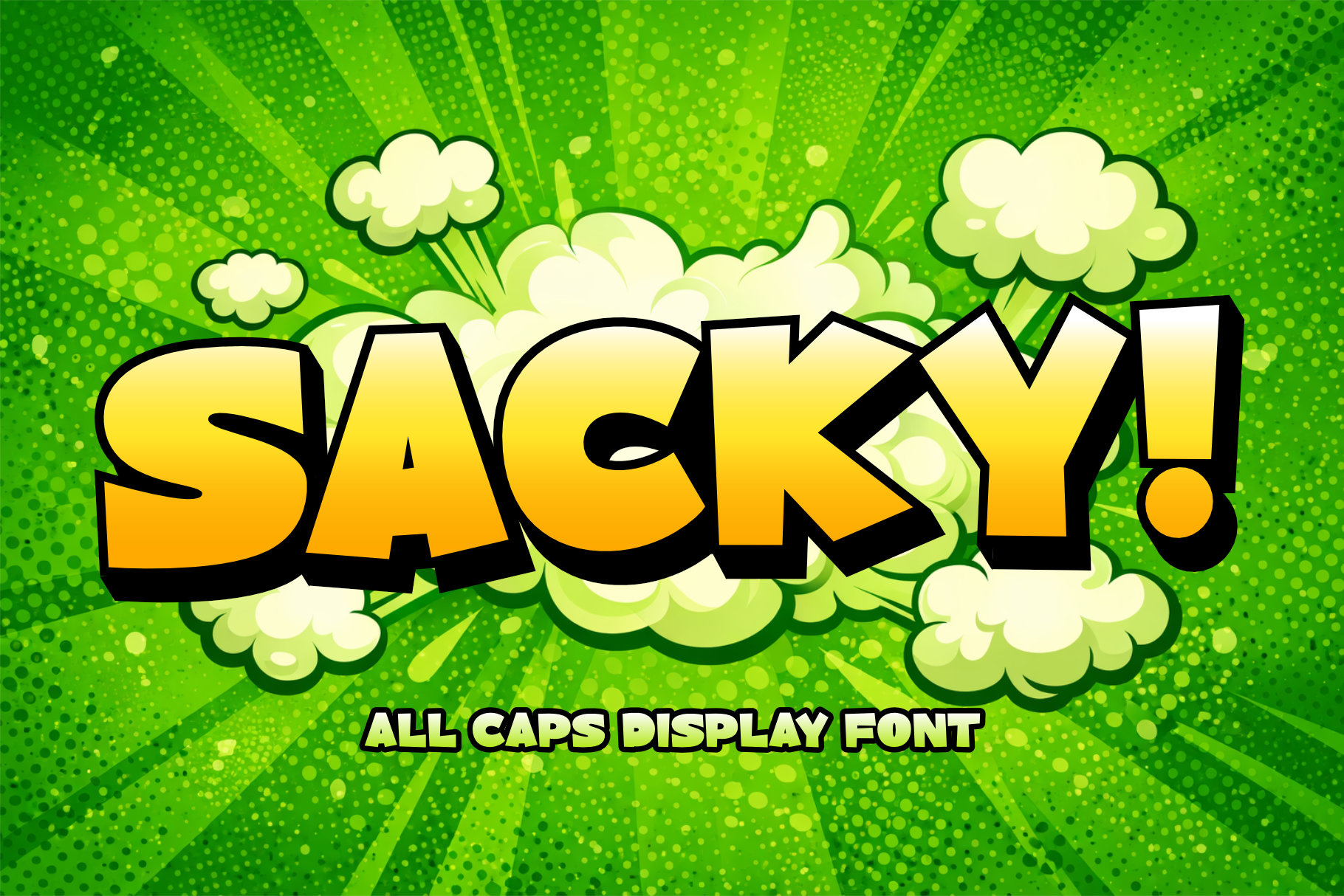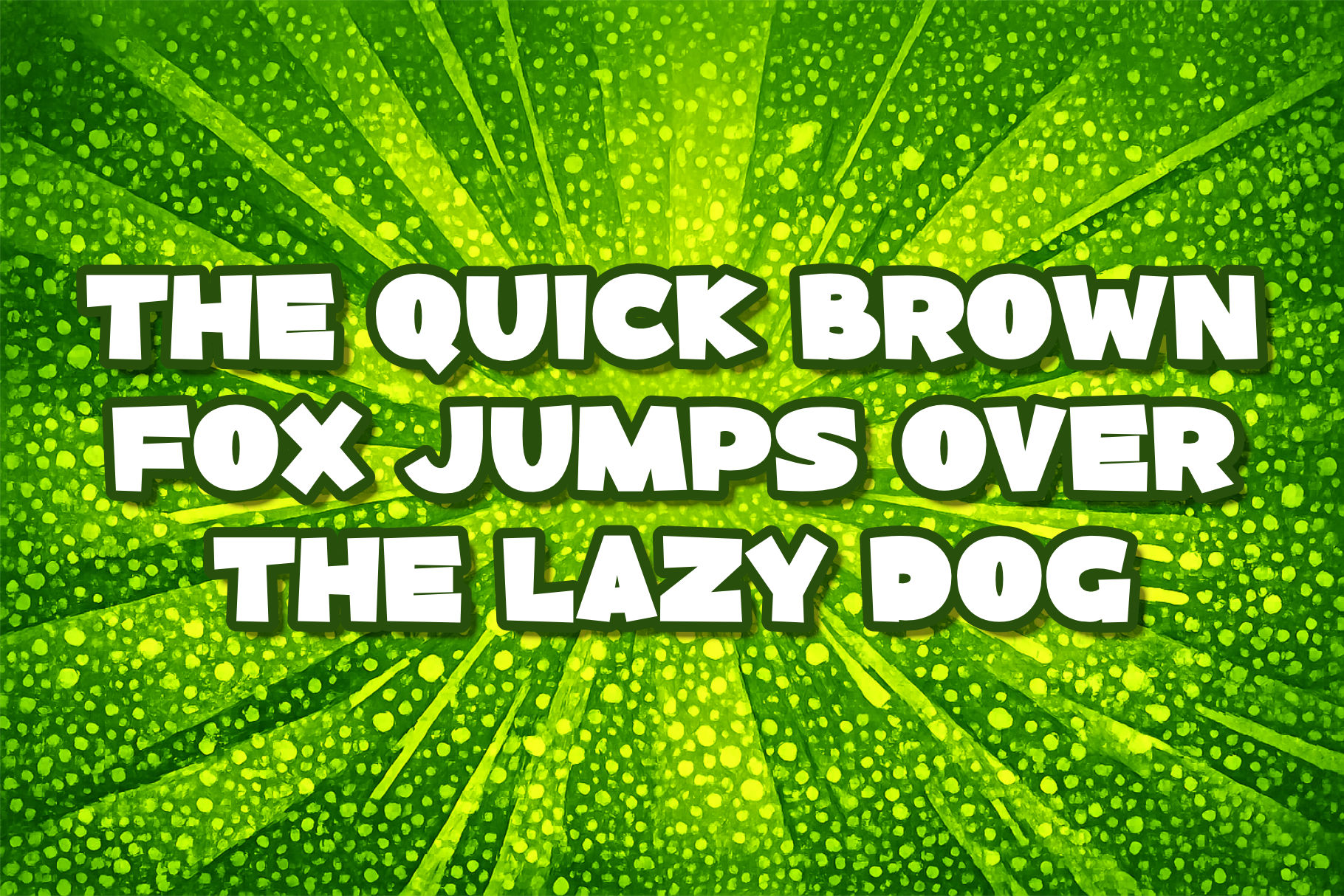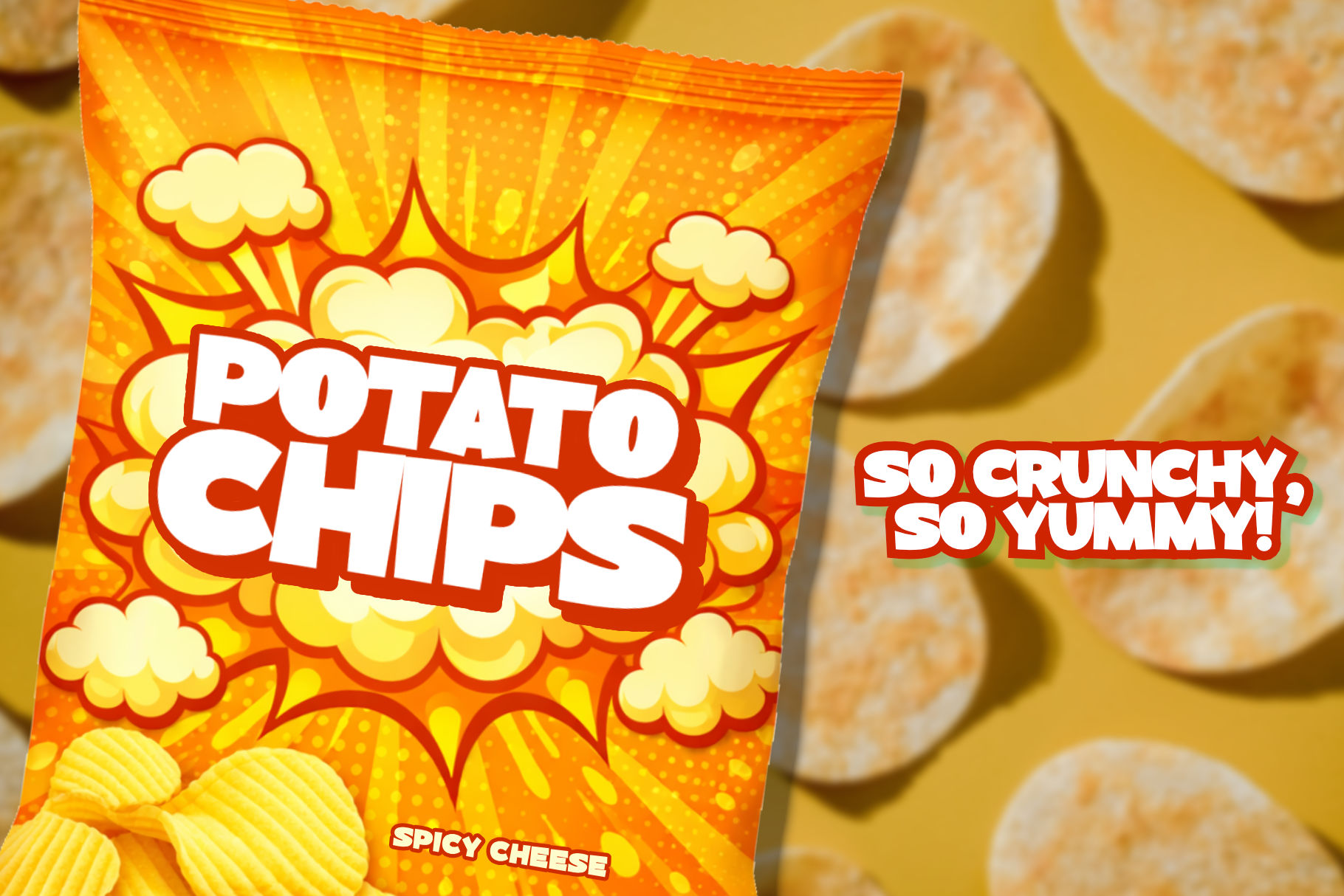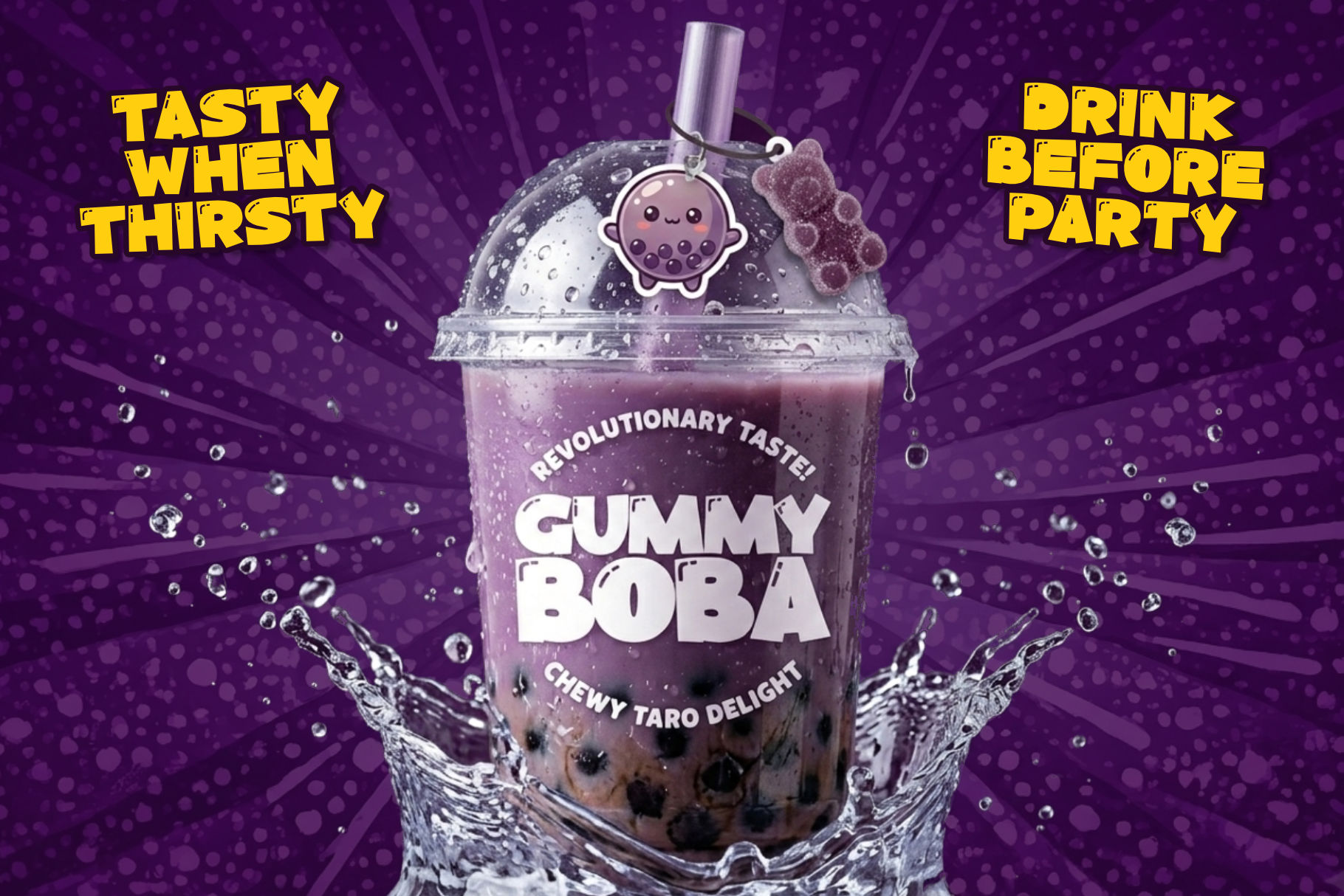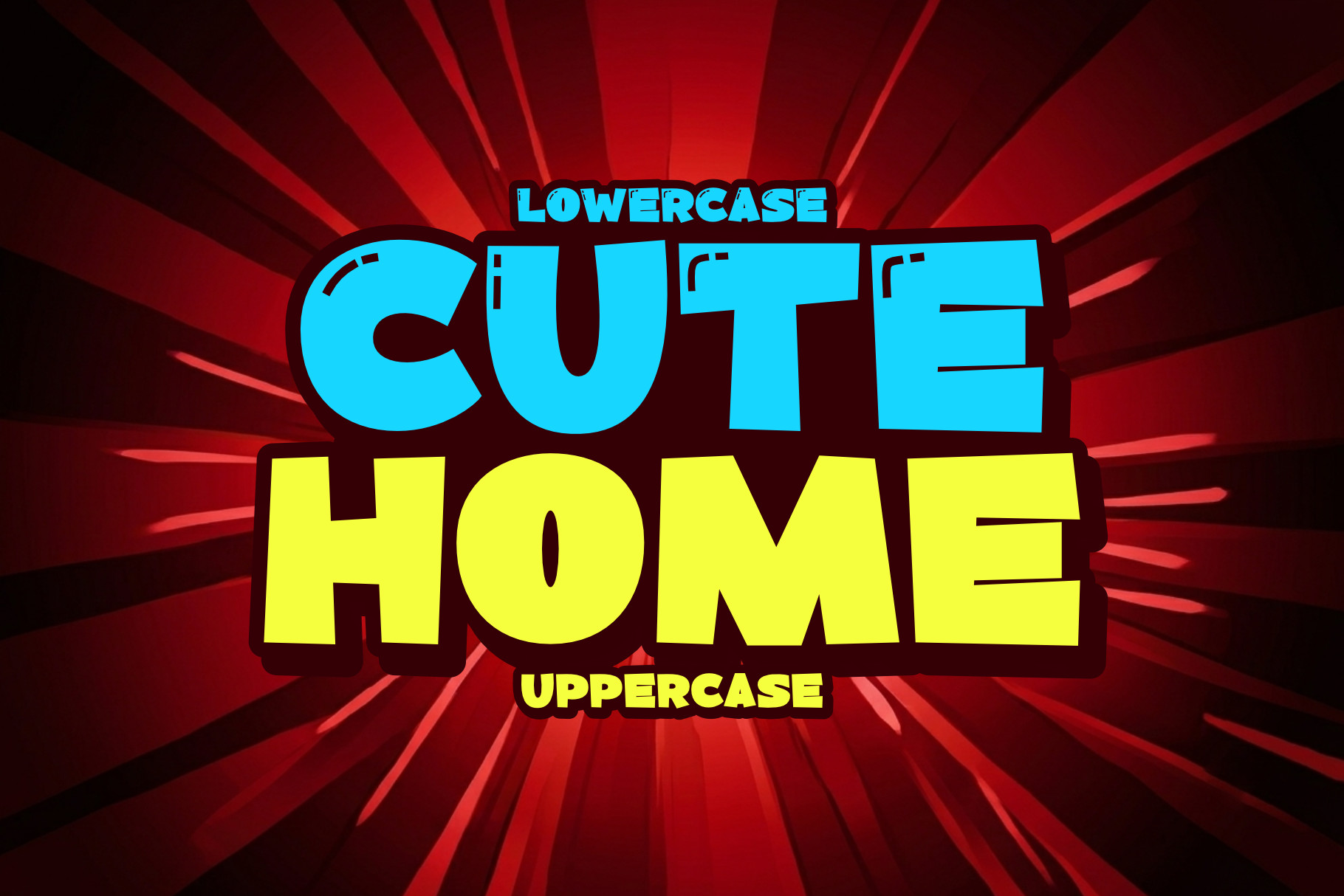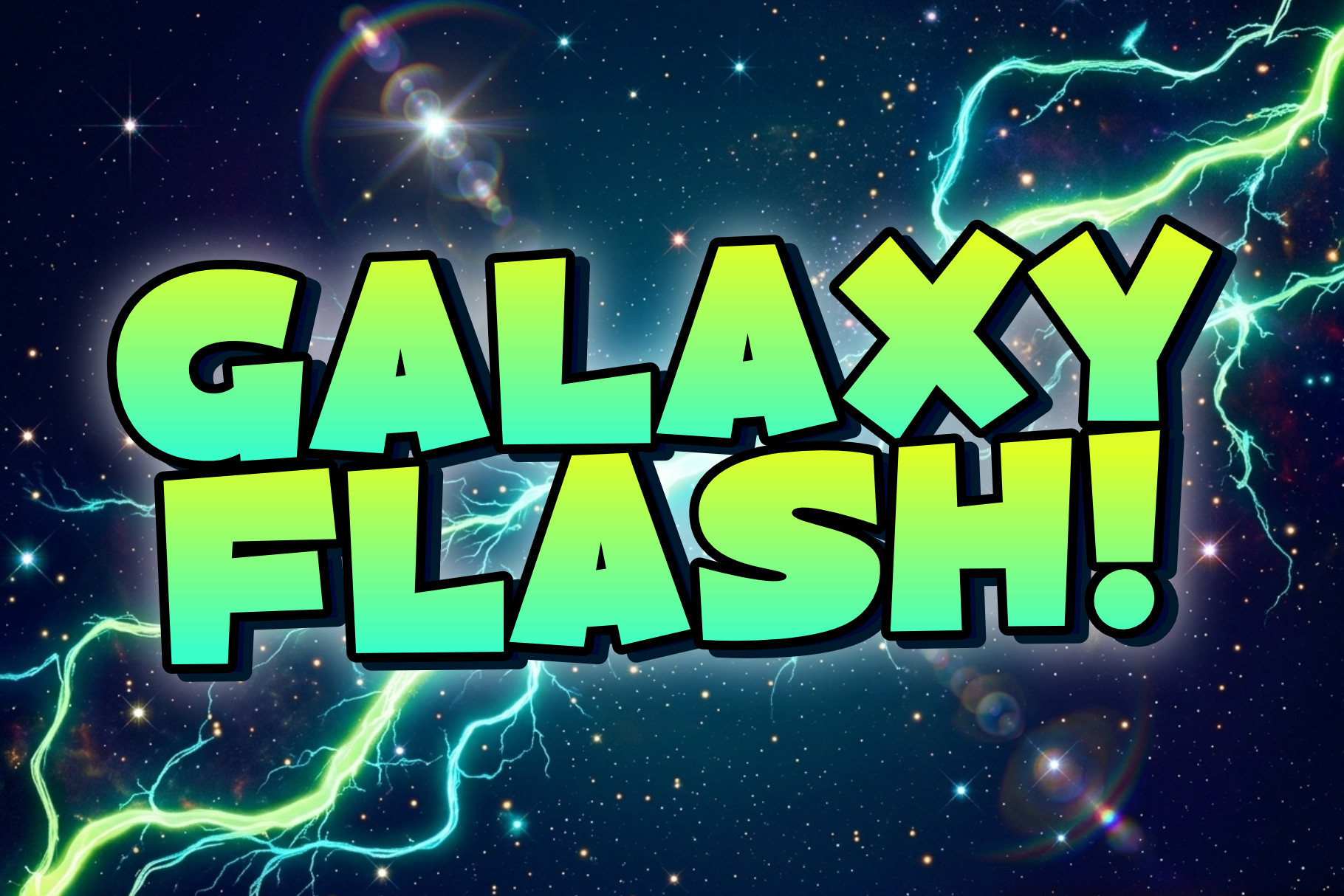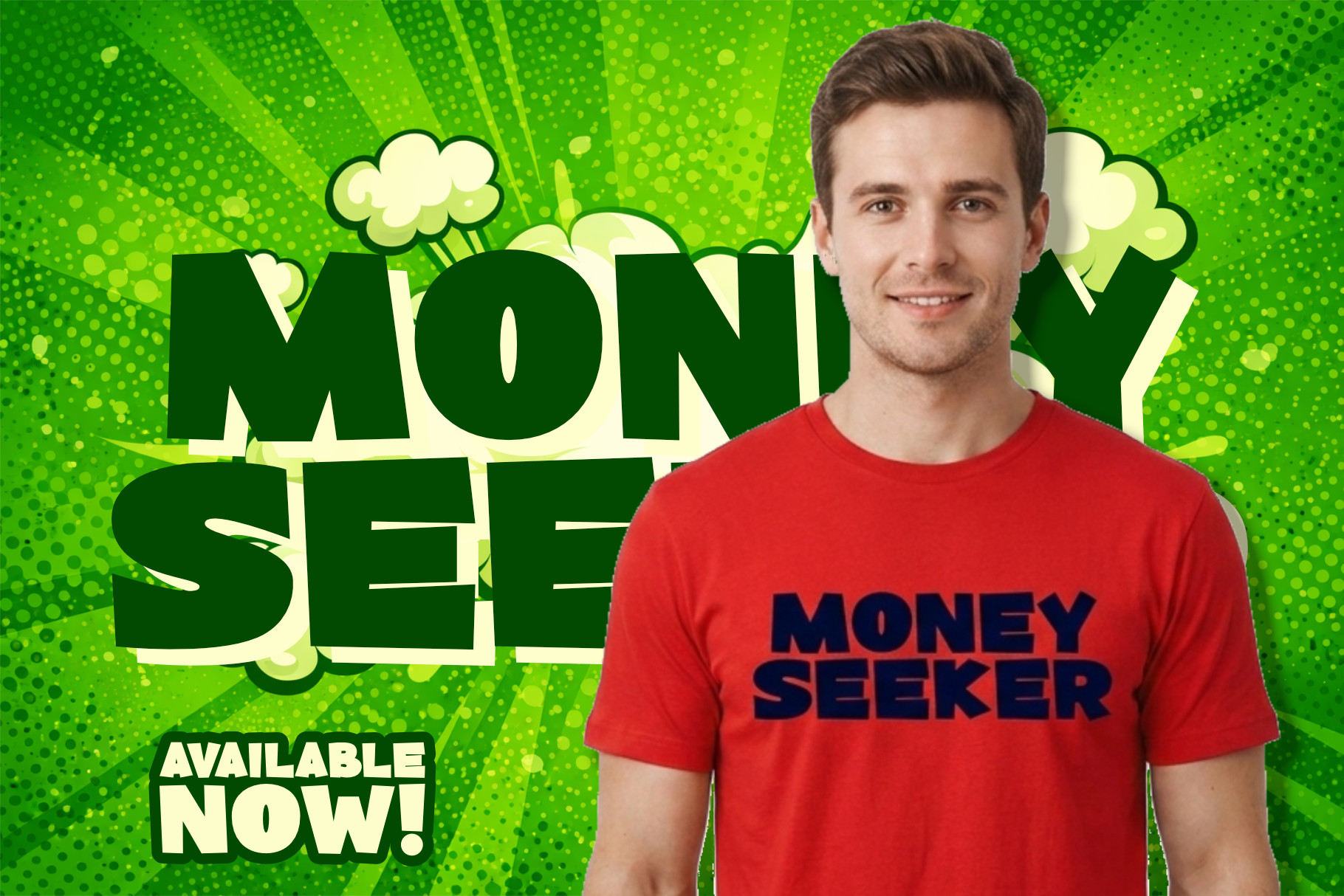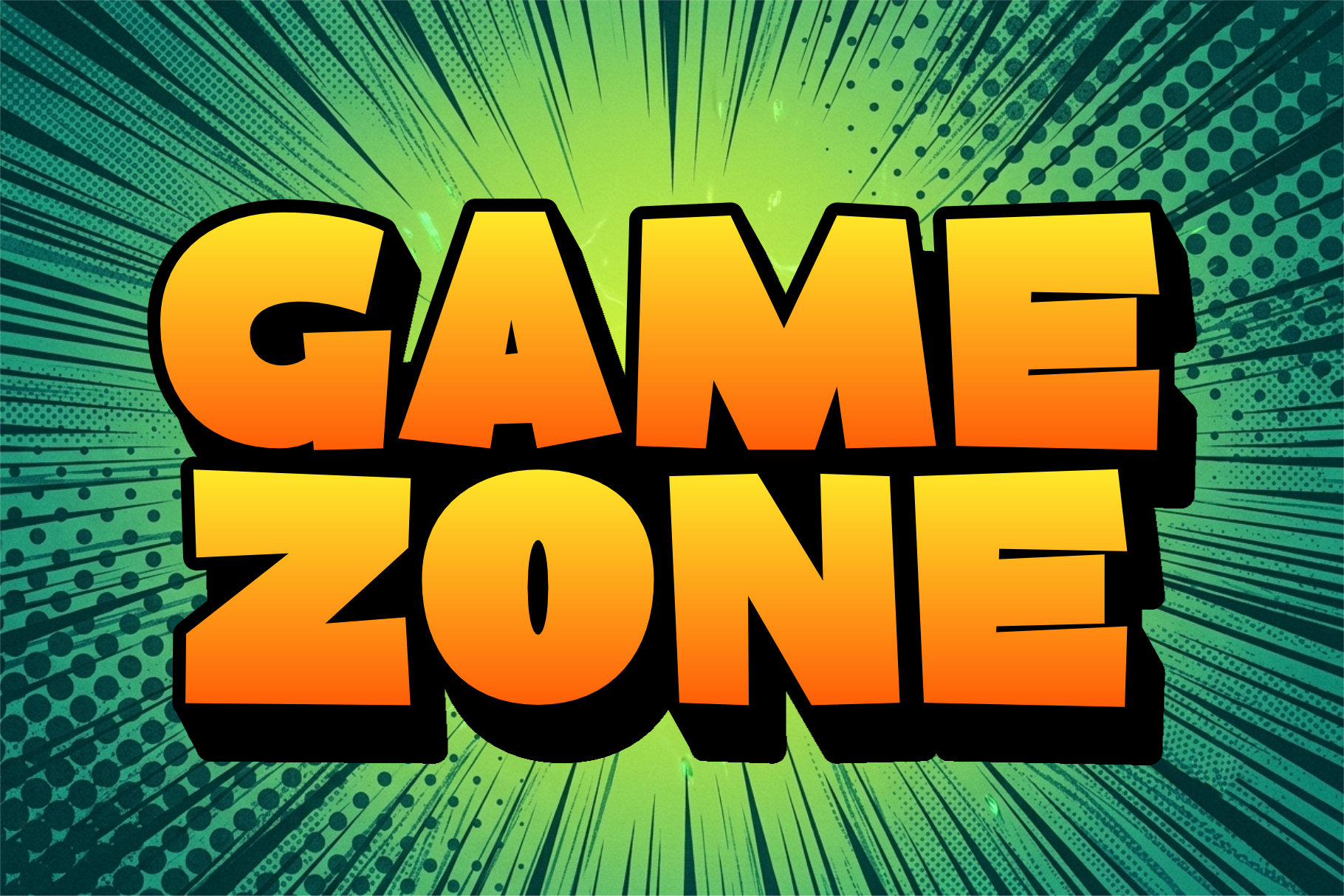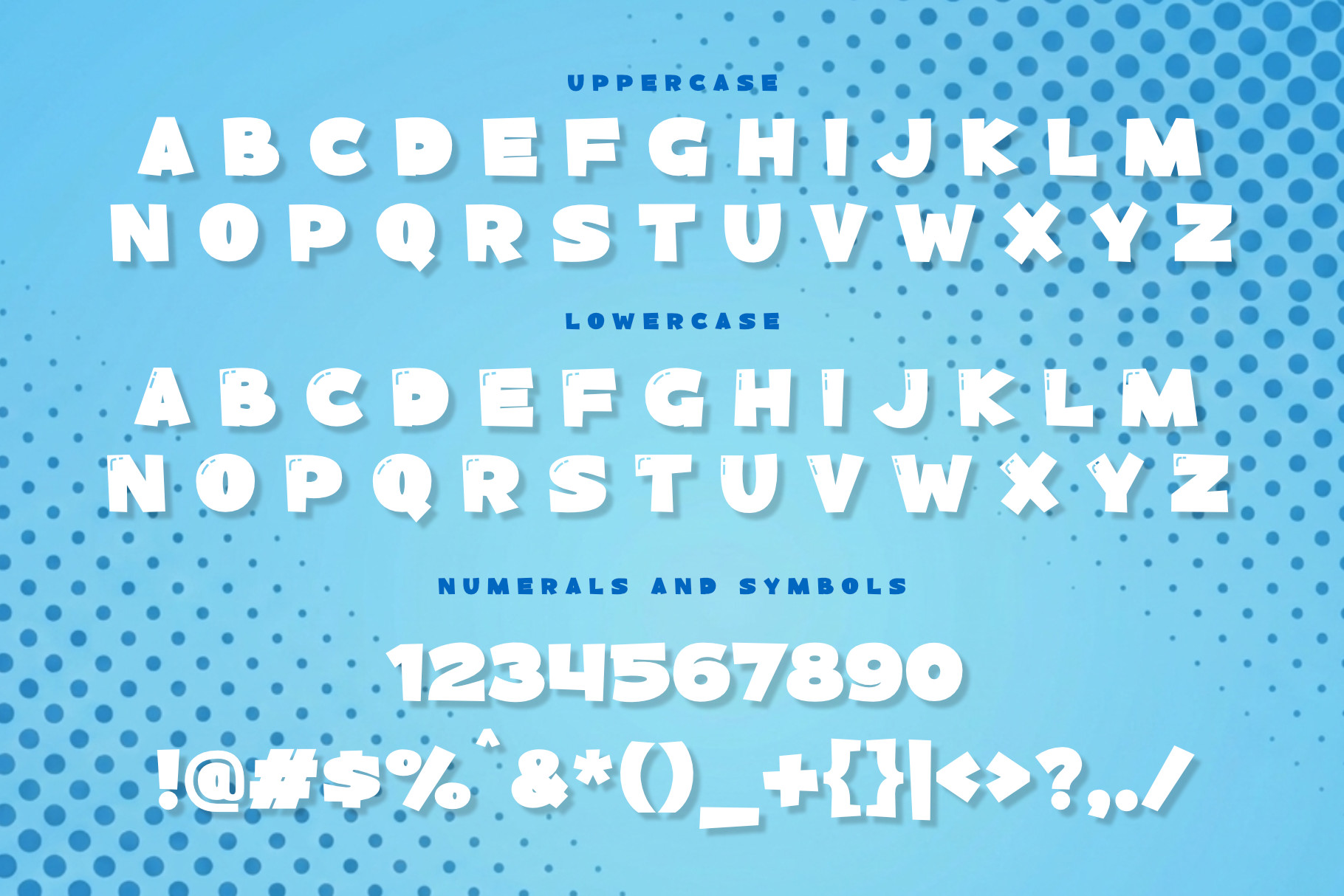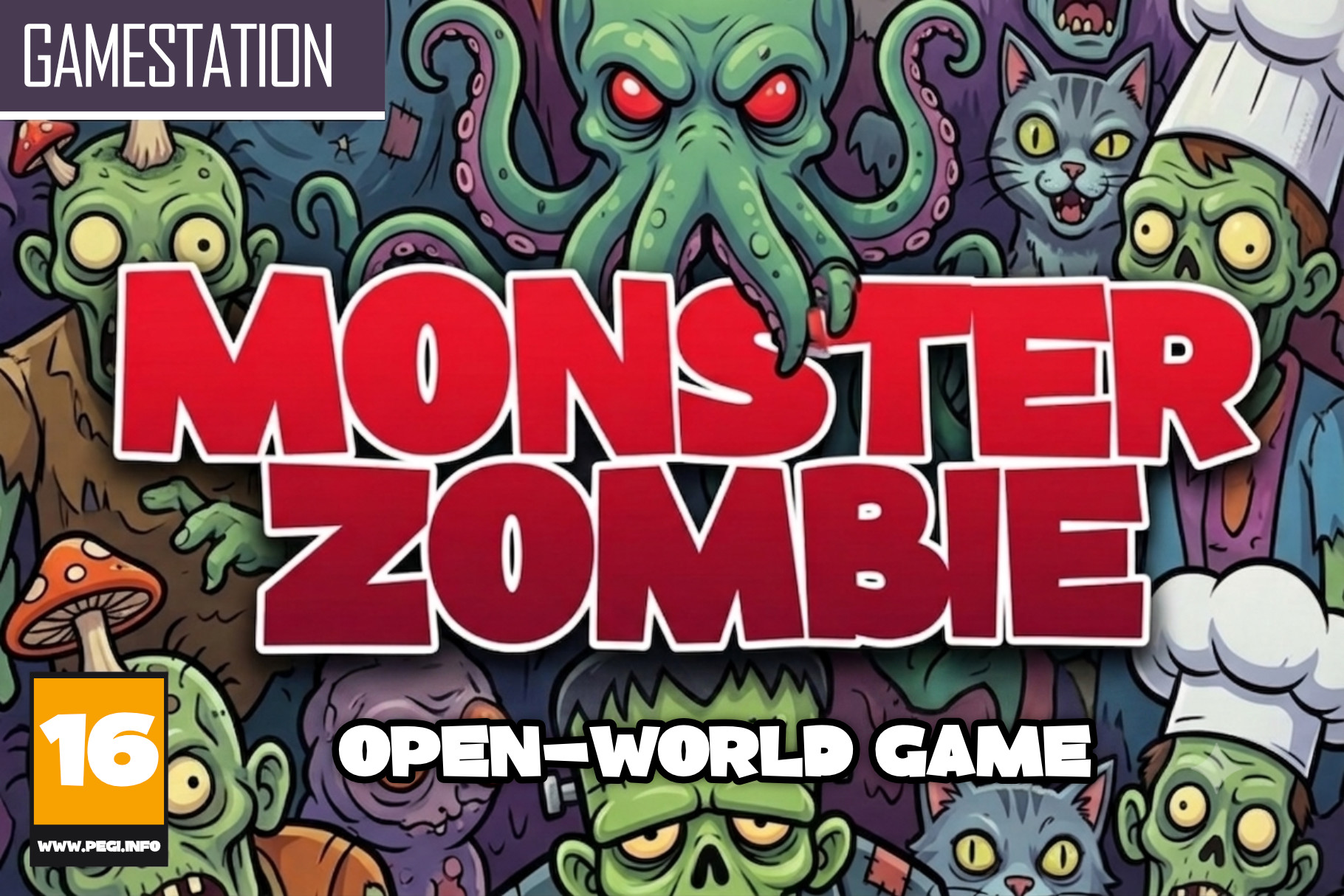
Introducing Sacky—the ultimate display font where bold geometry meets playful design. Sacky is an all-caps sans-serif font engineered for maximum visual impact, sporting a thick, comic-book-inspired weight that commands the spotlight wherever it is used.
What makes Sacky truly special is its interactive character layout. The uppercase set delivers solid, powerful headlines, while the lowercase set introduces a delightful, rounded bubble effect. This unique feature lets designers easily mix and match characters to create dynamic, custom-lettered layouts on the fly. Whether you are building a fun brand identity, designing trendy street merchandise, or crafting bold packaging, Sacky brings a lively, unmistakable energy to your design toolkit.